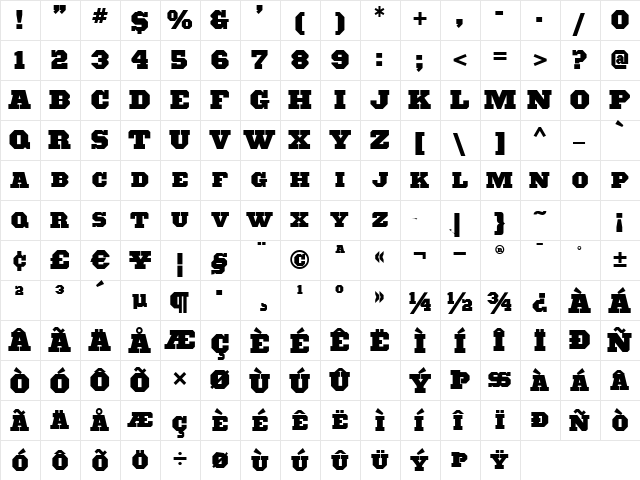
Ouachita Way Wbw Regula
Design Context for Ouachita Way Wbw Typeface
Ouachita Way Wbw is a composed and adaptable typeface that performs quietly and consistently across a wide range of design contexts.